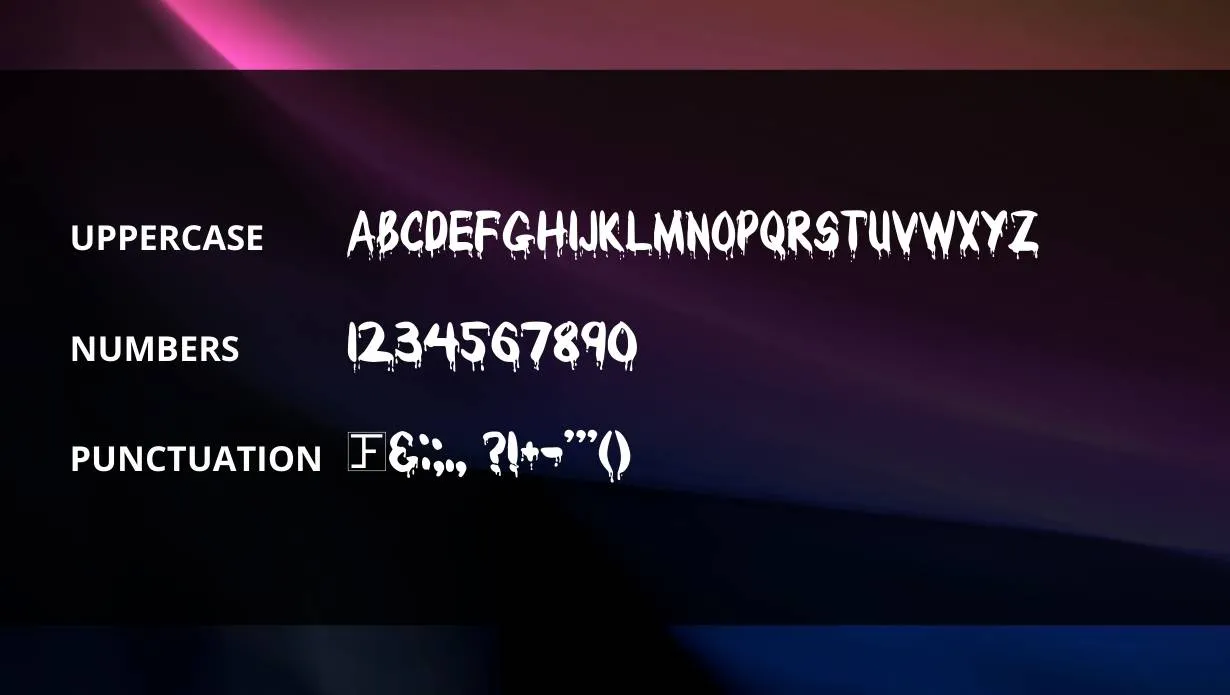
Bloody Font is a typeface that was created by graphic designer Kerry Callahan. The font is based on the popular horror movie genre and features a bloody, dripping effect.
The font is perfect for creating Halloween-themed designs, or for any project that needs a spooky, creepy feeling. This Font is available in both regular and bold weights and includes a full character set.
Bloody Font Info
| Name | Bloody Font |
| Designer | Kerry Callahan |